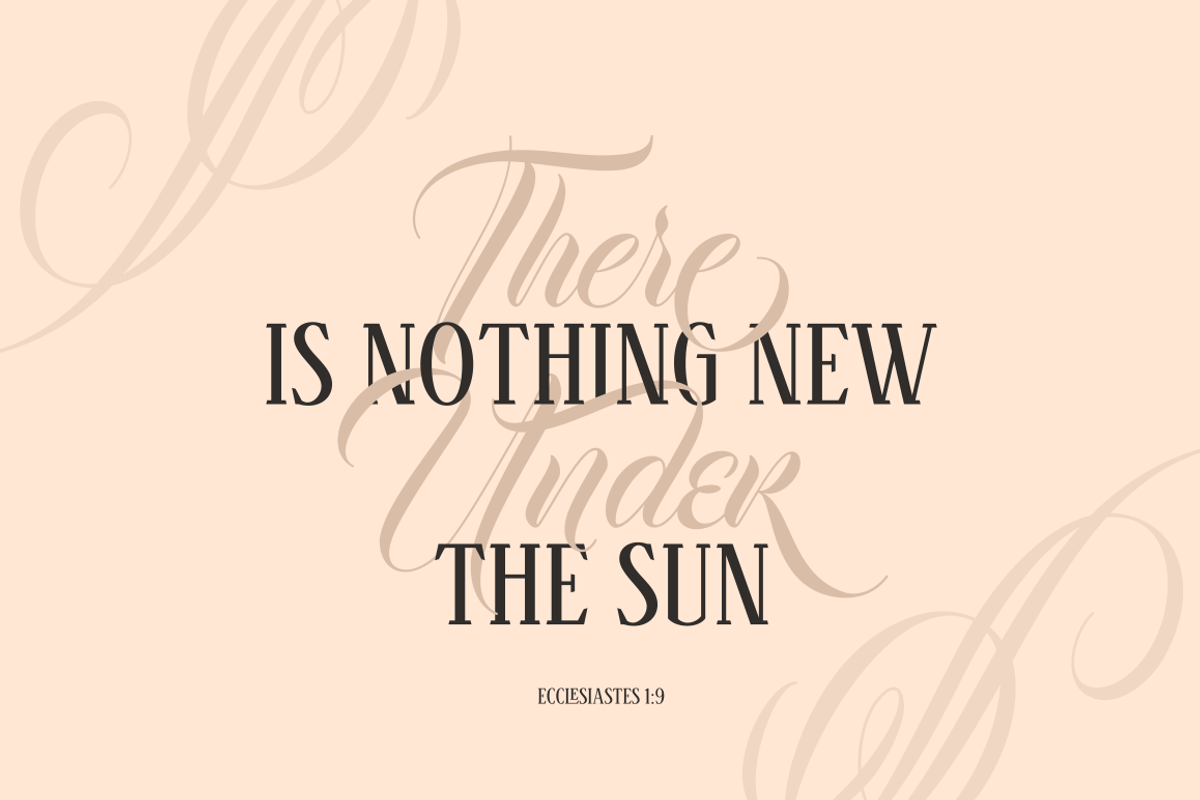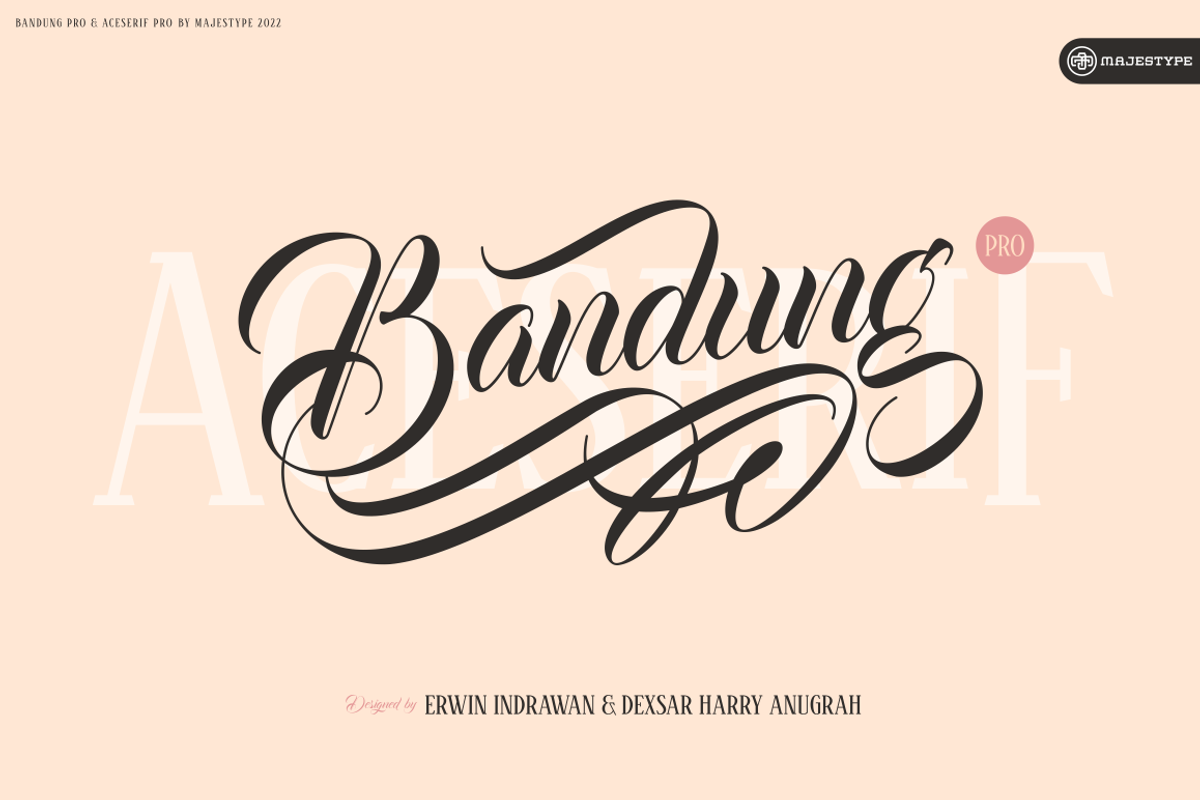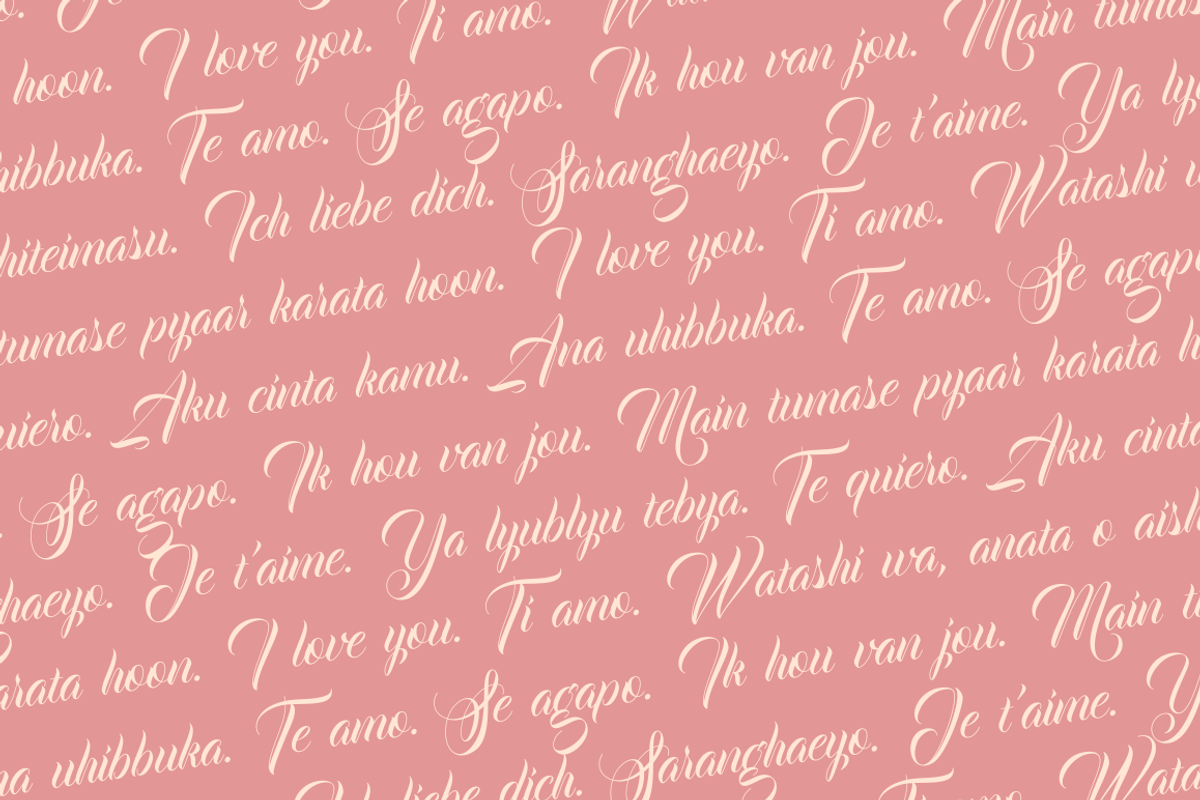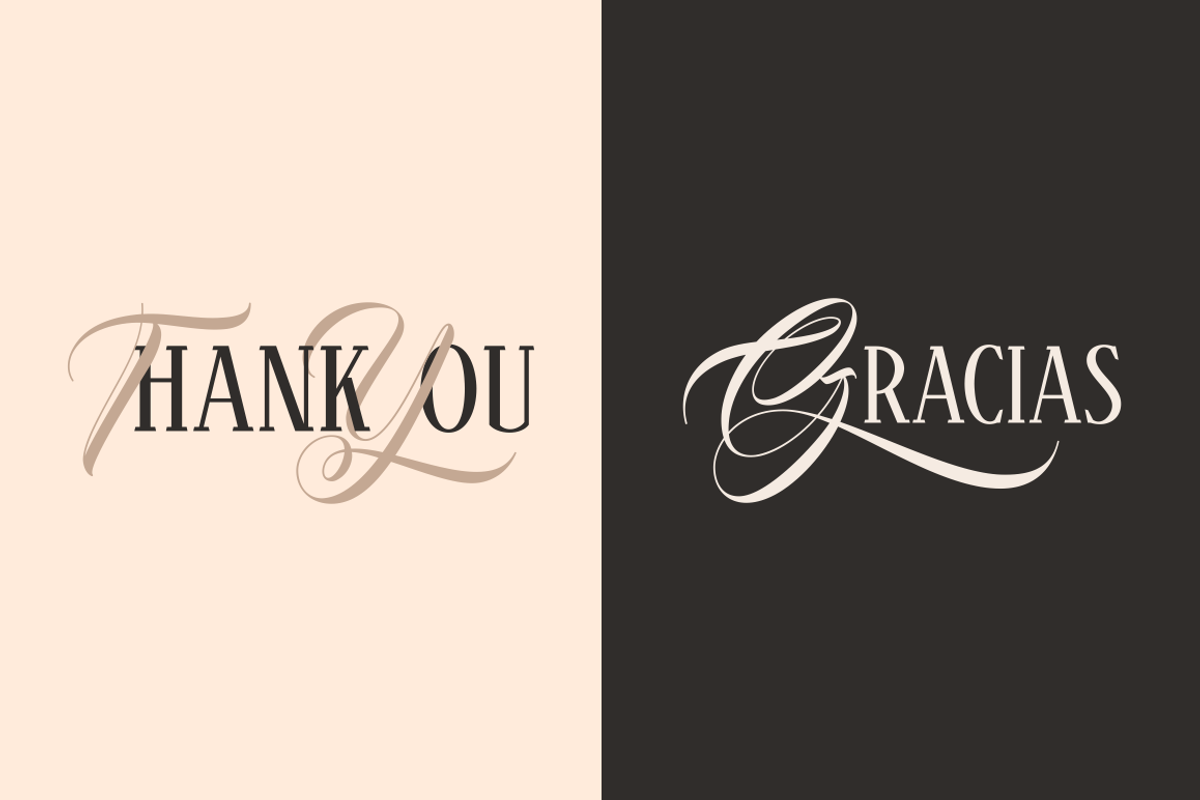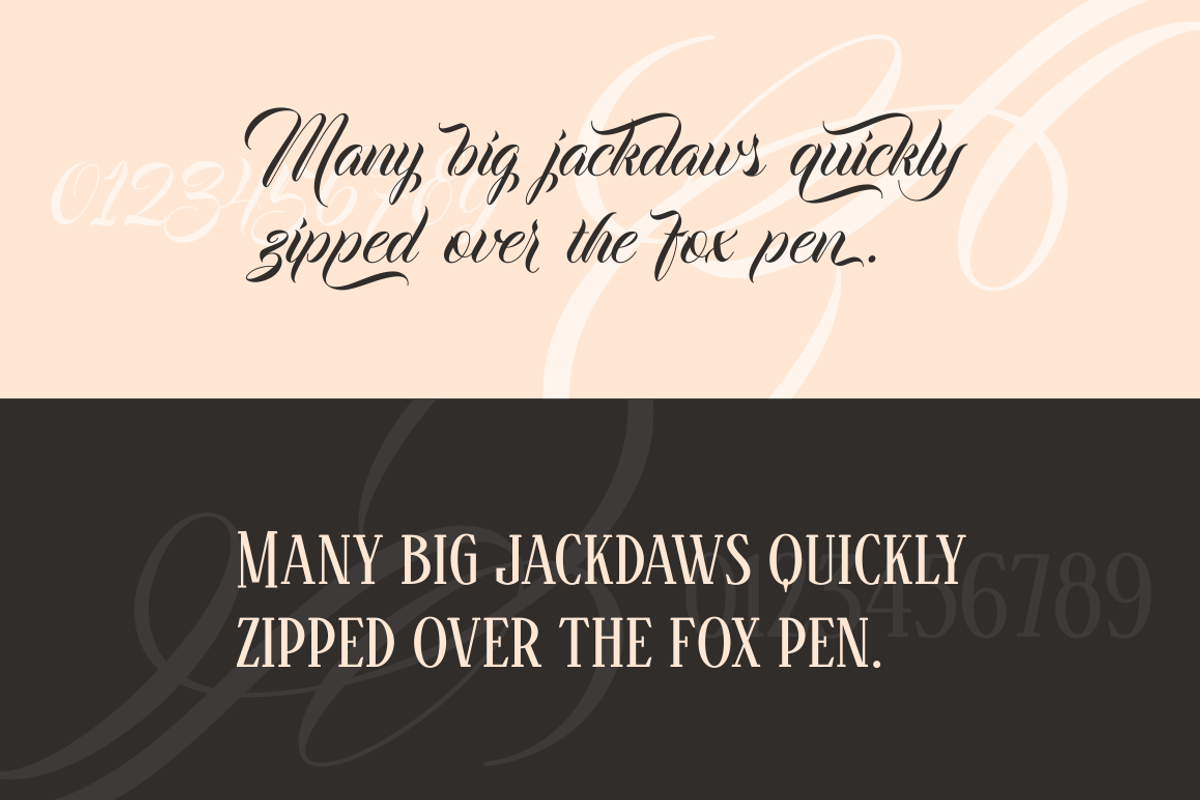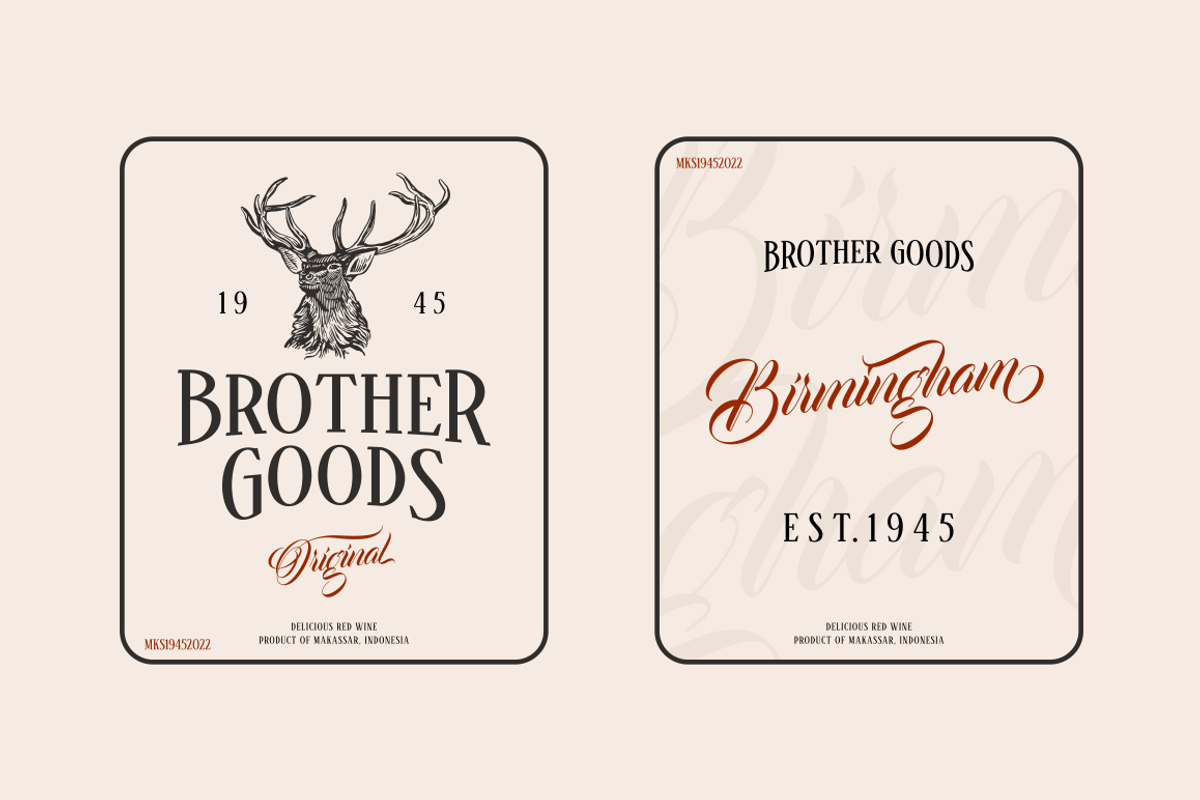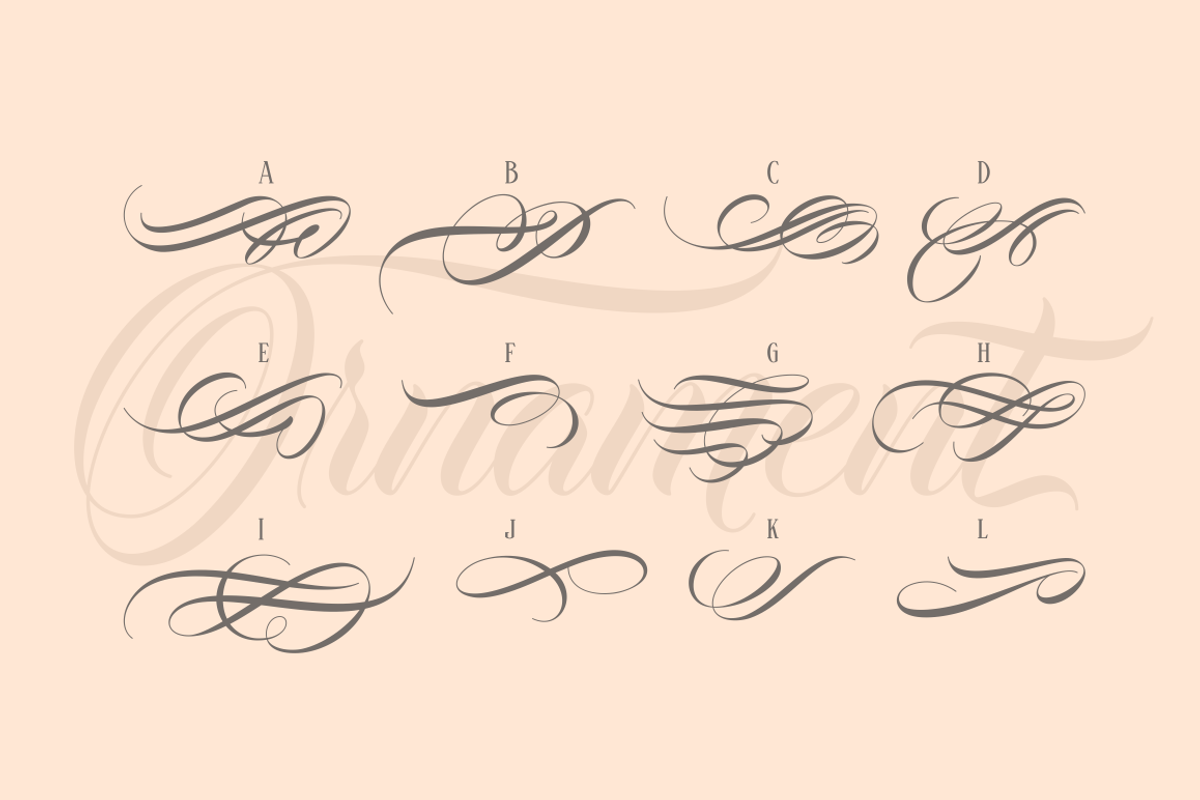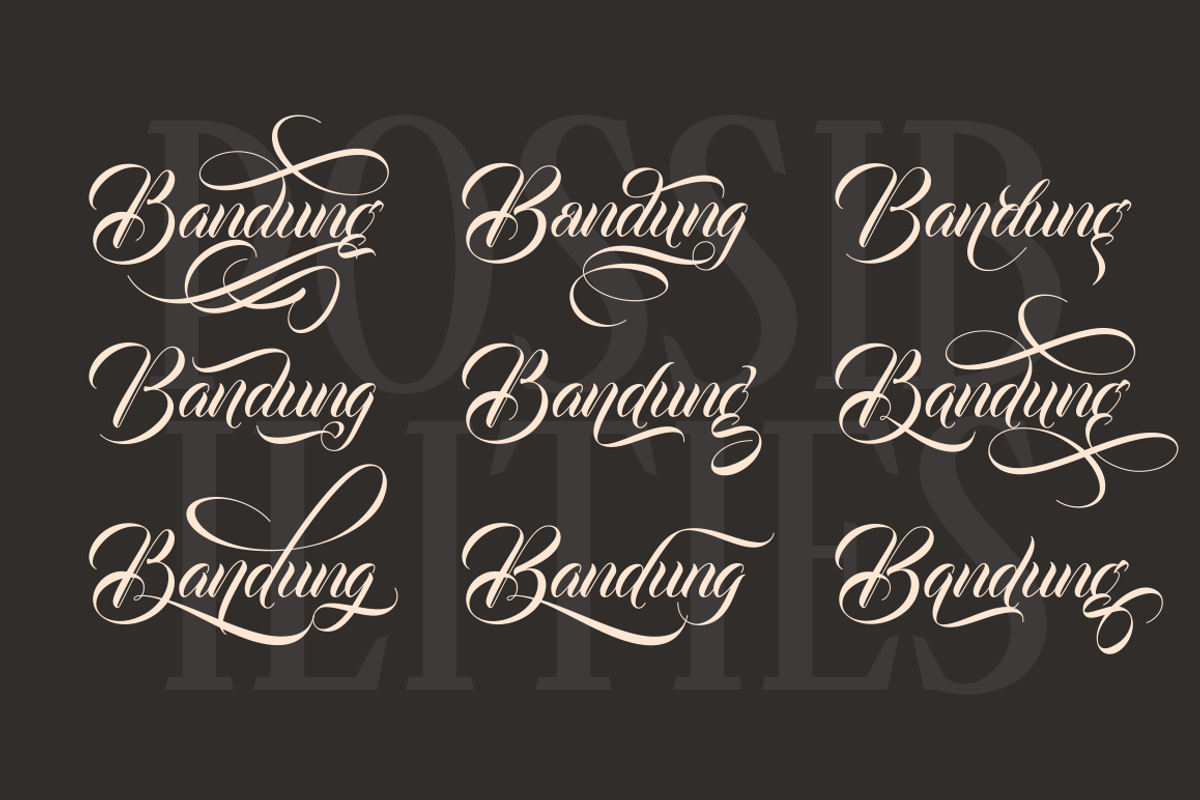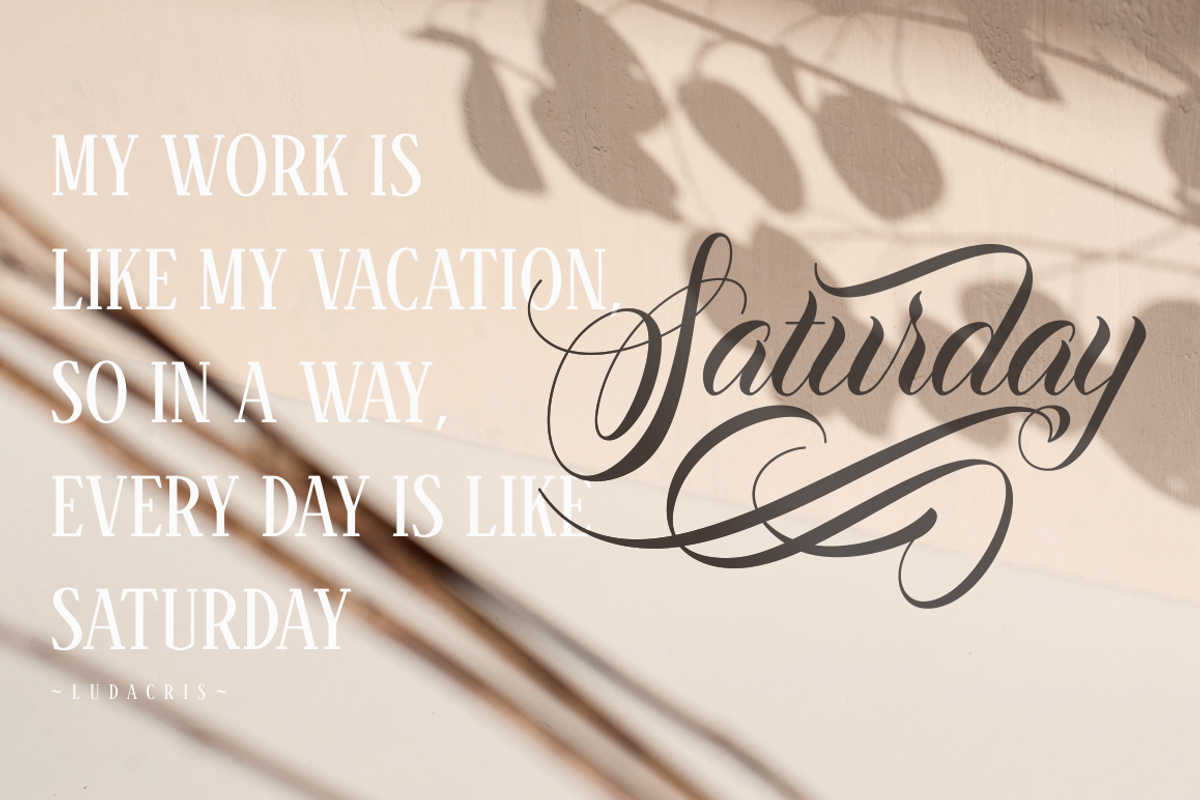
Bandung PRO - Luxury Wedding Font
Bandung Pro from Majestype was made to capture the natural movement of a brush script infused with the elegance of copperplate hand. With 6 months in the making, we want to make sure that the character set connects each other as natural and seamless as a handwriting would be. We give you a vast amounts of glyph options(700+) added with lots of swashes and flourishes to give you an authentic look of a hand made brush letters.
Aceserif Pro is an allcaps serif font inspired by traditional serif and art deco design. Equipped with 220 Glyphs and has the current opentype features. We made the uppercase letters slightly larger than the lowercase letters to give a good impression when used in designs that don't require a lot of words, such as headlines or headers. You can try it like this, "HeadlineS" - Capital letters are at the beginning and end of a word.
Bandung PRO & Aceserif PRO is suitable for wine label, photography, invitation, ID card, tattoo, poster, logo, title, tees, branding and etc.
Type Designer :
- Erwin Indrawan
- Dexsar Harry Anugrah